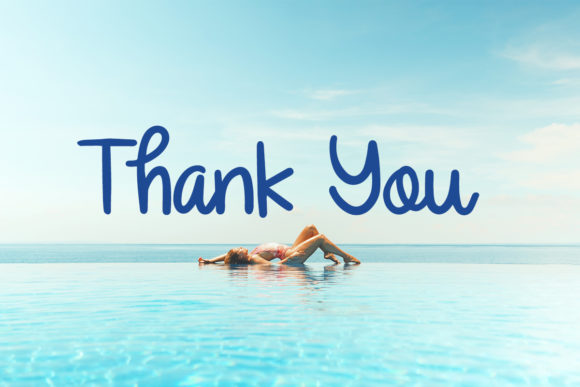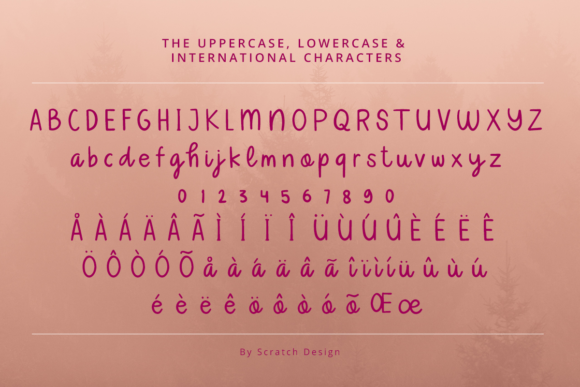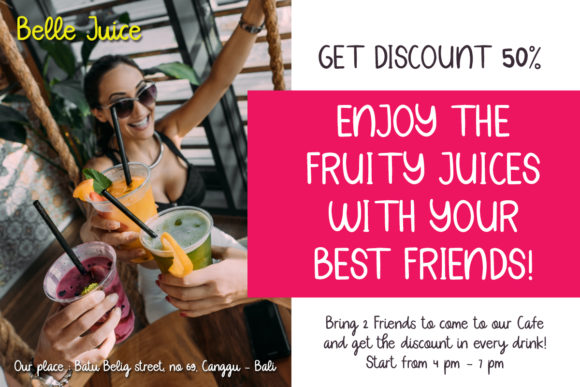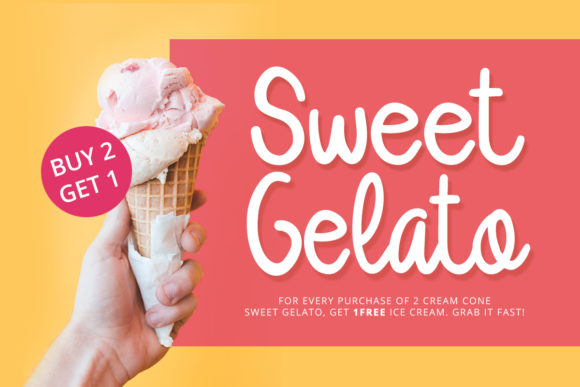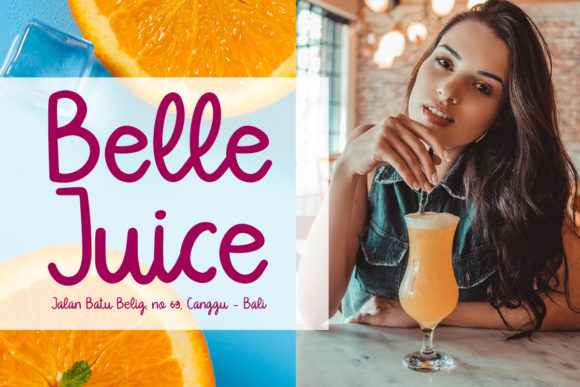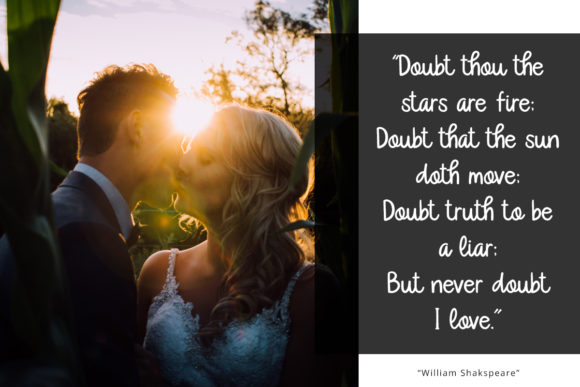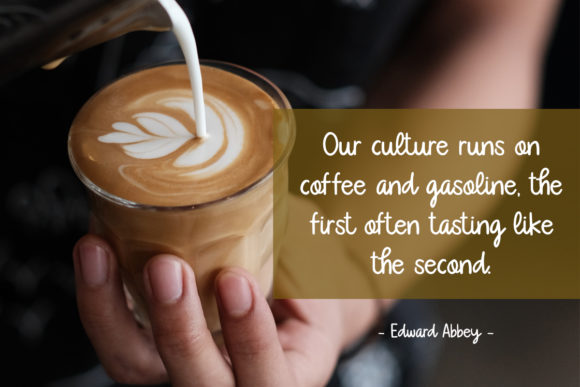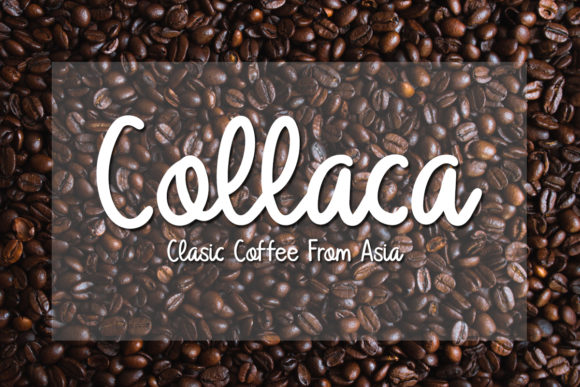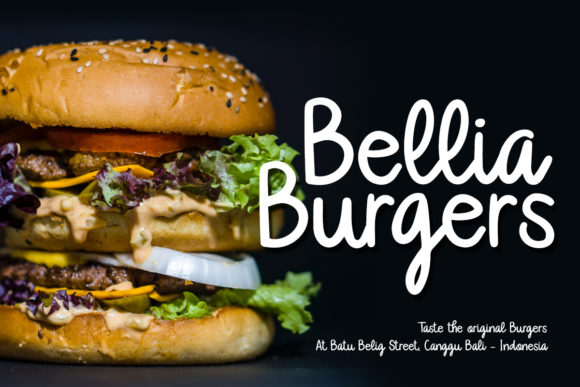
Vallato Font
About Vallato Font
Vallato is a stunning handwritten font that’s combining elegance and authenticity. Fall in love with its modern charm!